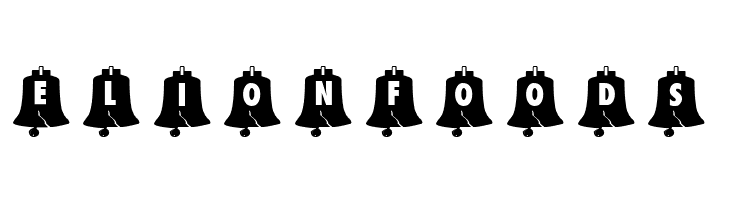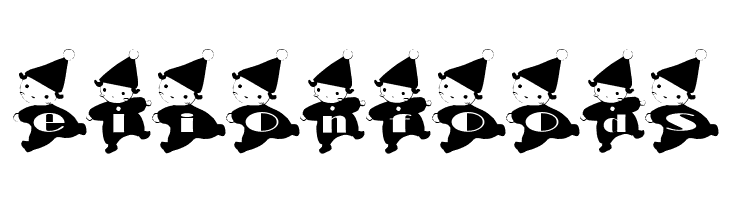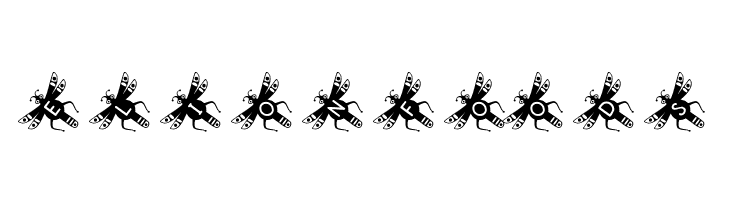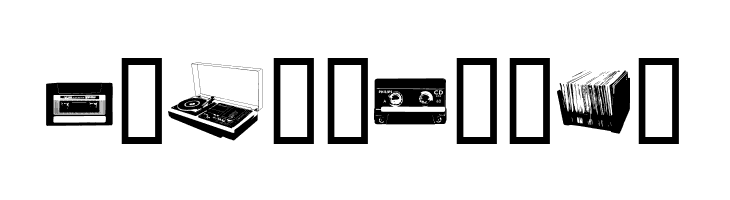
( Nght's Place - www.crosswinds.net/~nghtmvs/font/fonts1.html )
A decorative font with characters encased in bell silhouettes, ideal for thematic designs.
( Perry Mason )
A quirky dingbat font of hair and facial hair illustrations.
( Pi's Room - isweb13.infoseek.co.jp/diary/pi_/ )
A playful, decorative font with characters integrated into cartoon-like figures.
( Renny Murray - www.rennysniche.com )
A playful font with characters embedded in fly illustrations, offering a whimsical and decorative style.
( Renny Murray - www.rennysniche.com )
A whimsical font with characters inside cartoon penguin silhouettes, perfect for playful designs.
A decorative dingbat font with retro audio equipment icons.
A decorative dingbat font of outlined vehicle icons.
A bold icon font with food and kitchen motifs.